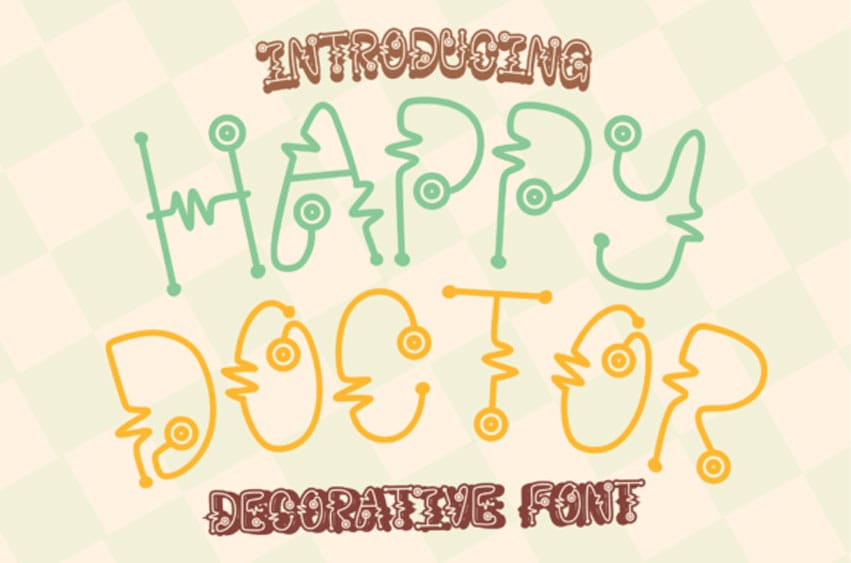
Happy Doctor Font is a cute decorative font. It embodies playfulness and authenticity and is the perfect choice for all your favorite projects such as blog posts, logos, branding, ads, invitations, greeting cards, planners, photo albums, decorations, and more.